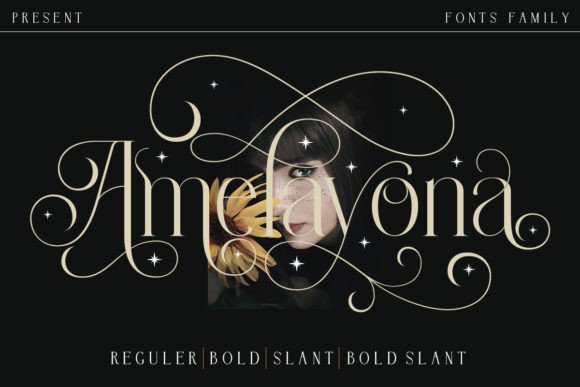
Welcome to the world of Amelayona, a captivating serif font that promises to mesmerize you with its exquisite beauty and unparalleled elegance. Imagine a font that transforms your creative visions into breathtaking realities. Amelayona is just that and much more.
Crafted with meticulous attention to detail, each letterform in Amelayona exudes a timeless grace that speaks of sophistication and luxury. Its sweeping curves and delicate flourishes lend an air of refinement to your designs, making them stand out from the mundane. Whether you're creating logos, branding materials, or simply seeking to add a touch of elegance to your projects, Amelayona is the perfect choice.
Unleash your imagination and delve into the boundless possibilities that Amelayona offers. Let your creativity soar as you explore the endless ways to incorporate this stunning font into your work. Whether you're an experienced designer or just starting, Amelayona is the ultimate tool to elevate your projects to new heights.
Immerse yourself in the world of Amelayona and discover the true power of typography. Its versatility knows no bounds, making it the ideal companion for a wide range of projects. From web design and social media graphics to print materials and branding, Amelayona effortlessly adapts to your every need.
Don't settle for ordinary fonts that blend into the background. Embrace the beauty and distinction of Amelayona. Let its intricate details and timeless charm captivate your audience and leave a lasting impression.
Step into the realm of typographic excellence with Amelayona. Experience the joy of creating designs that speak volumes, designs that evoke emotions and inspire action. Make a statement, stand out from the crowd, and let your creativity shine through.
With Amelayona by your side, you'll unlock a world of possibilities. Let your imagination run wild and bring your creative dreams to life. Embrace the elegance, sophistication, and boundless versatility of Amelayona, and elevate your projects to new heights of excellence.